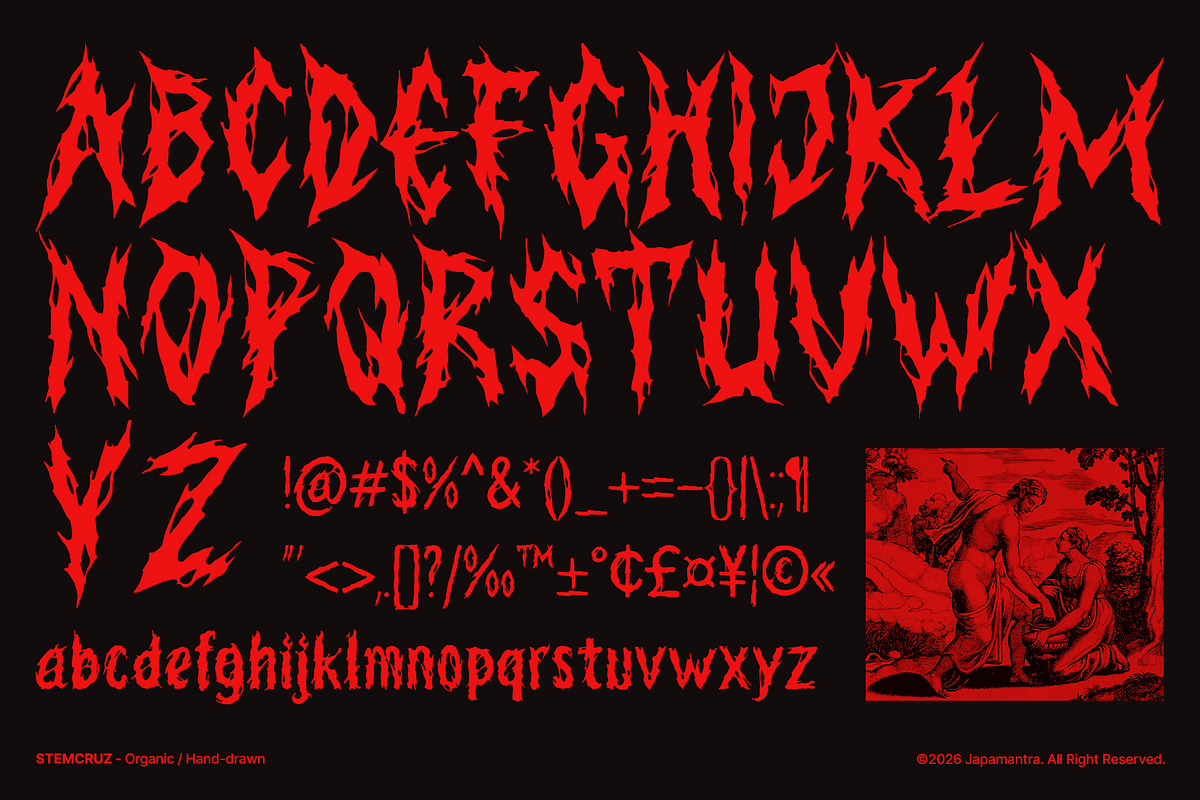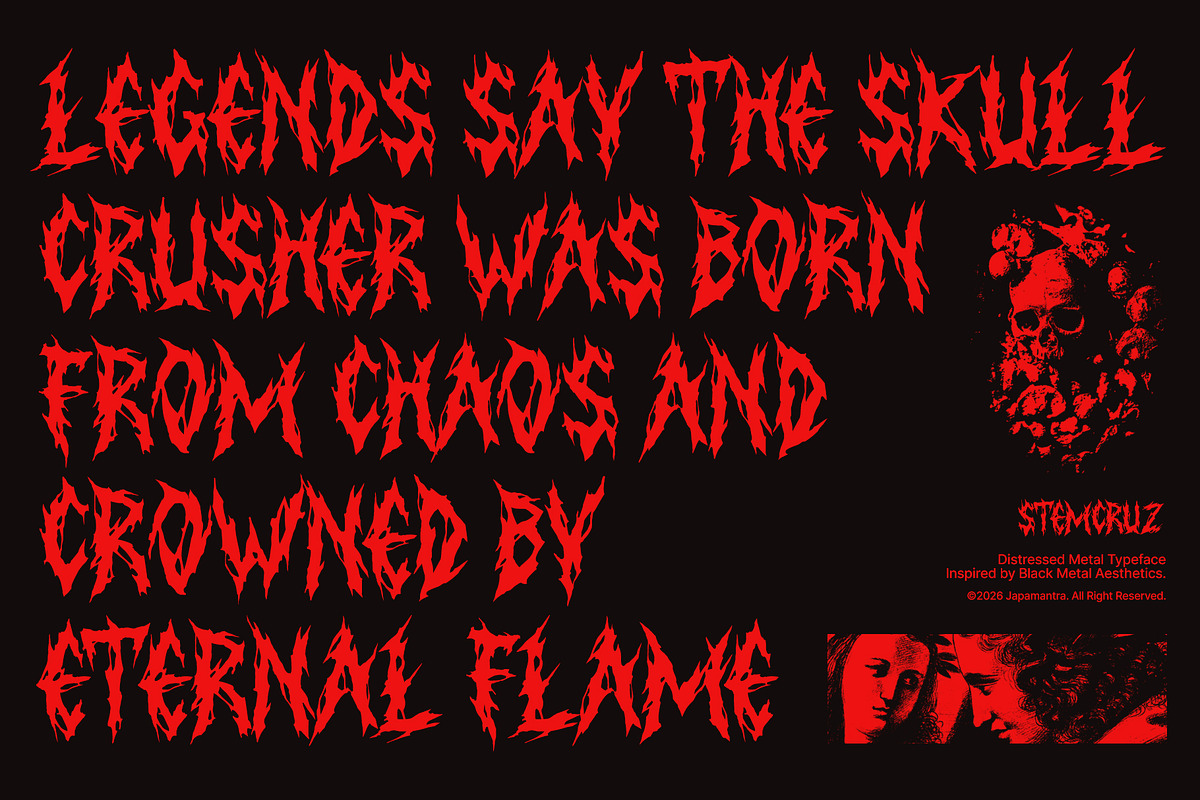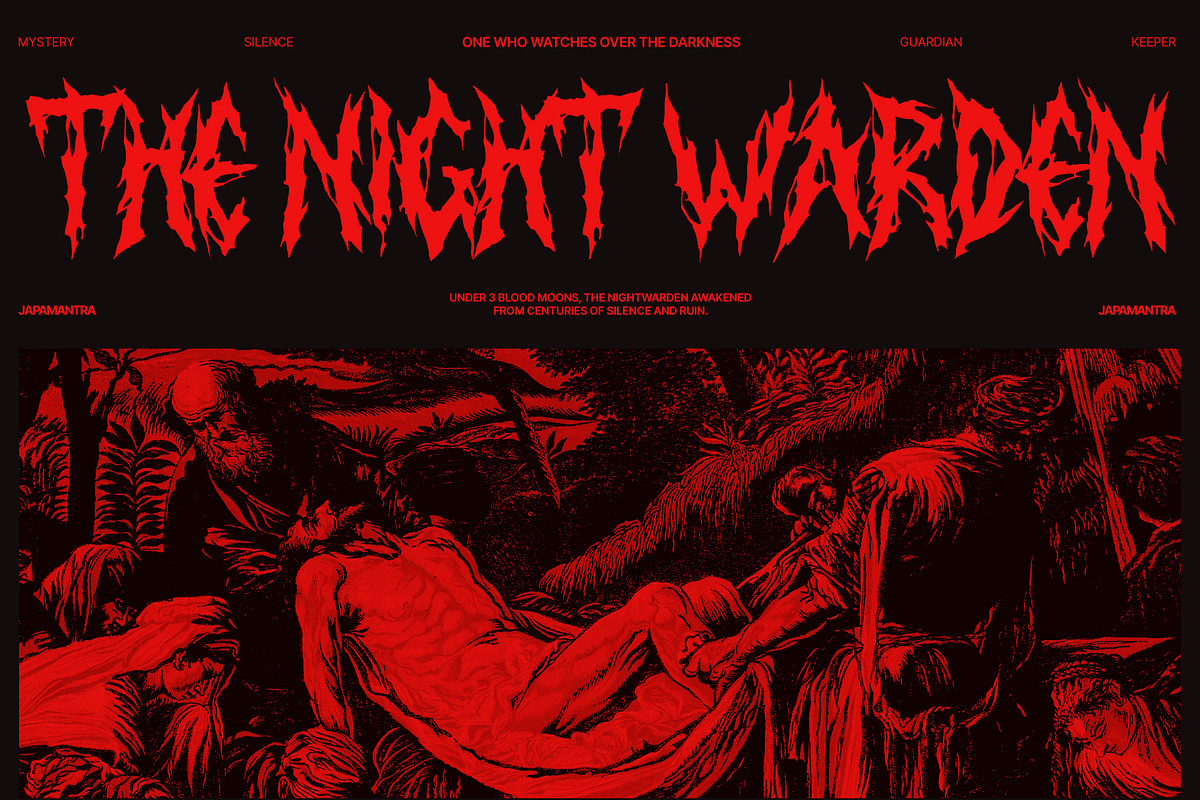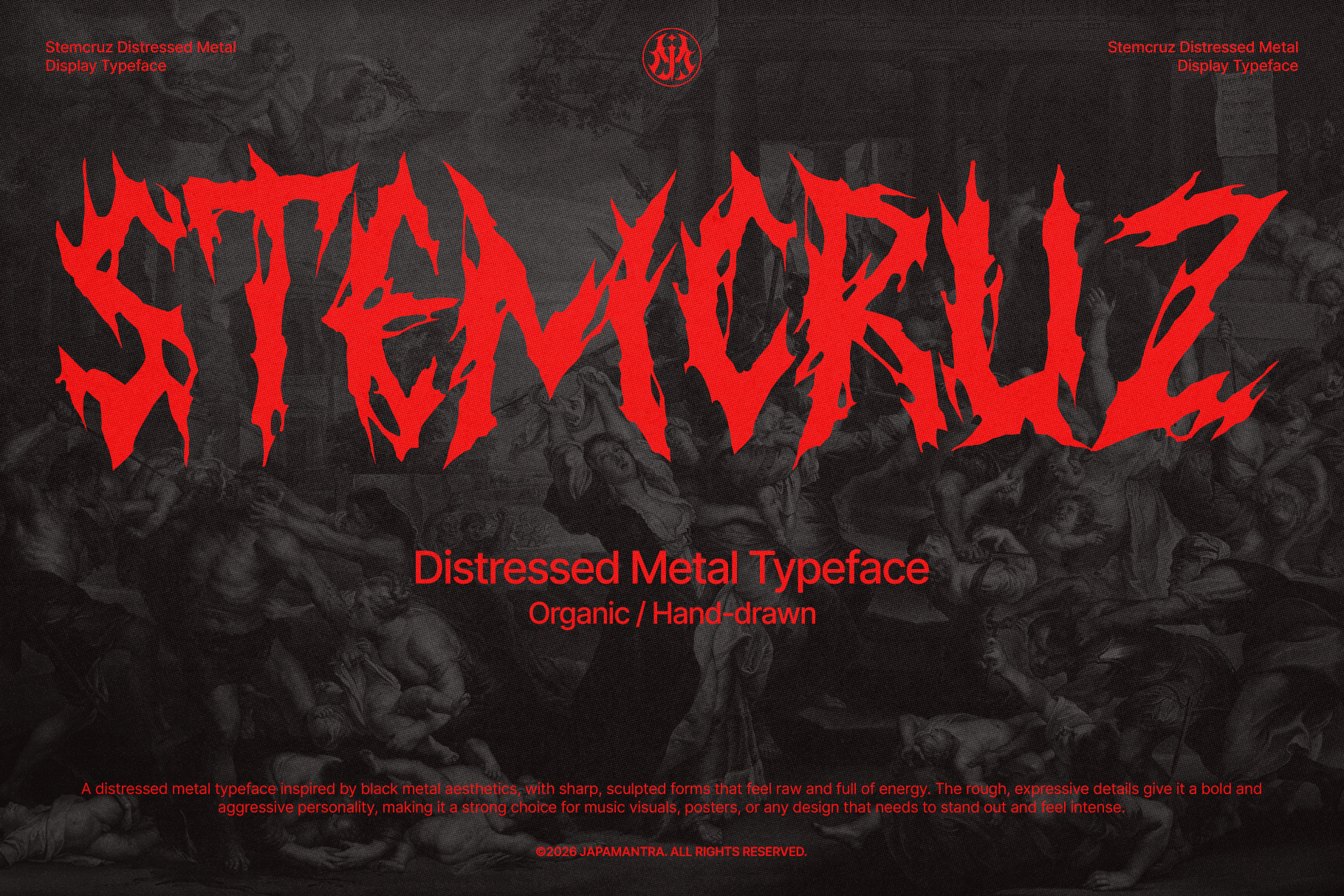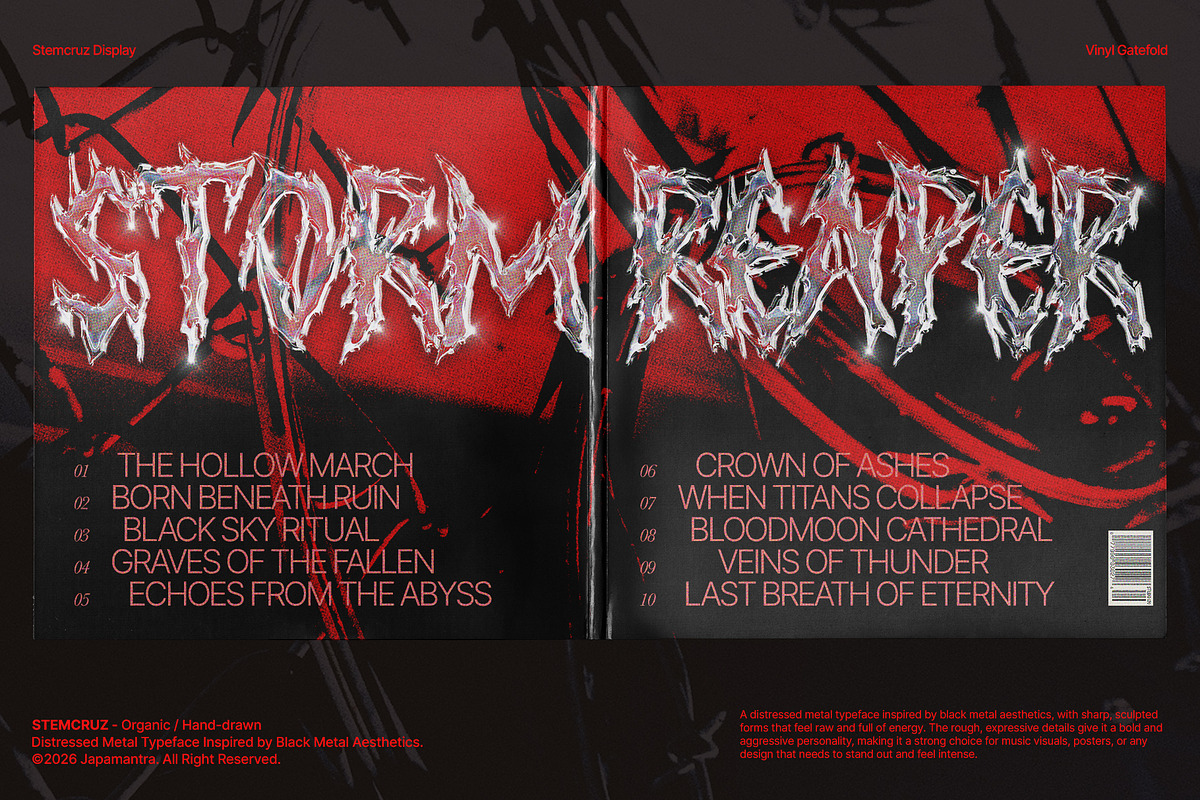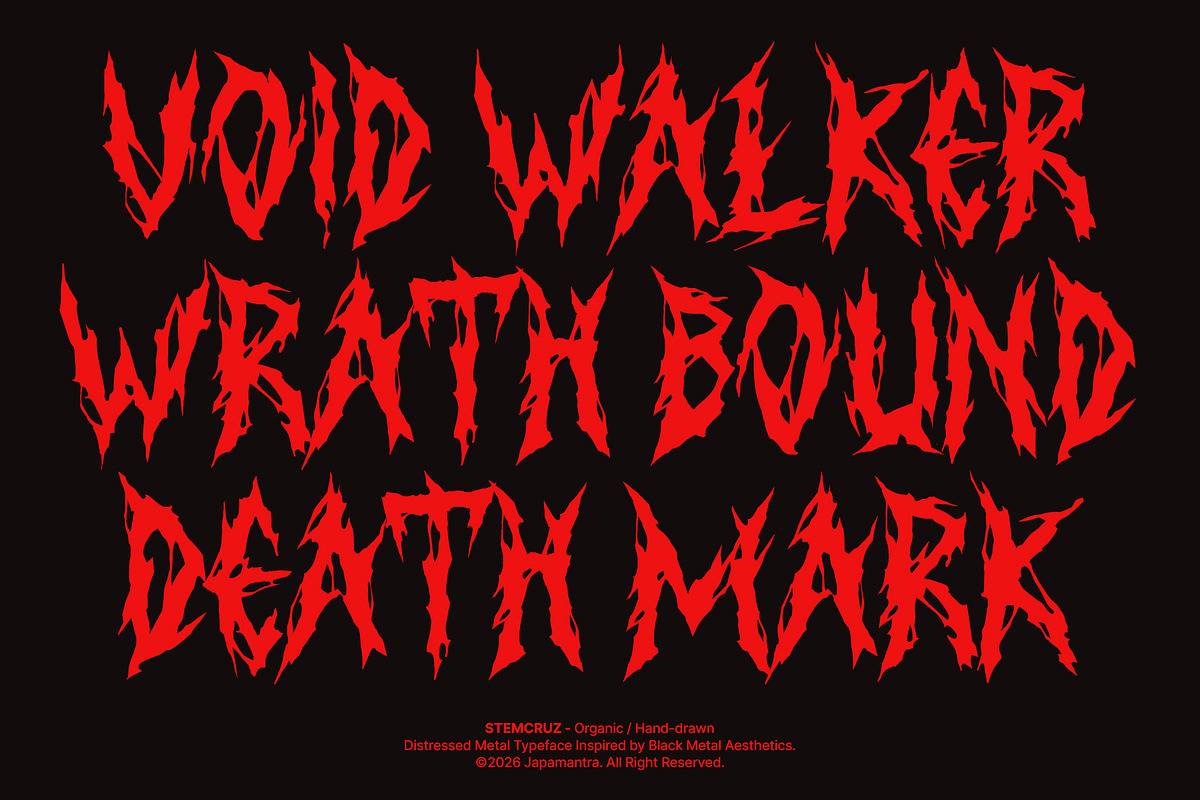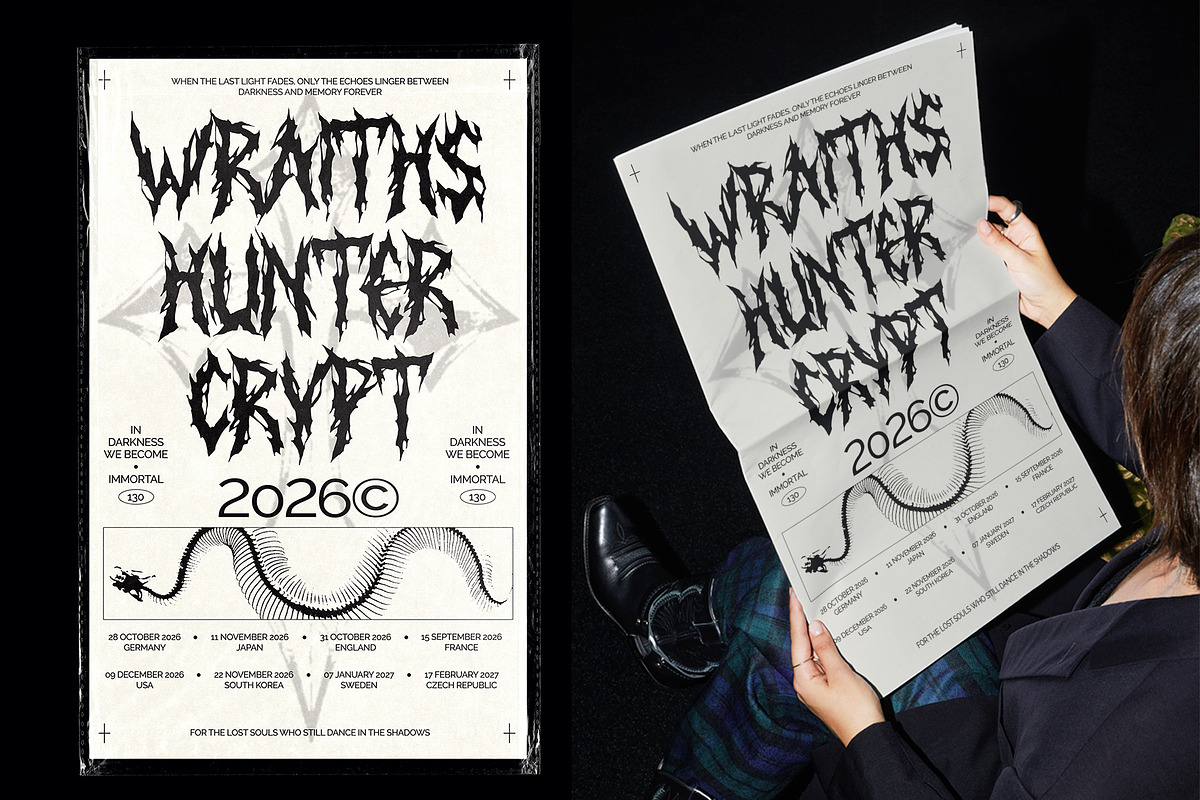
Stemcruz - Distressed Metal Font
STEMCRUZ is a hand-drawn distressed metal typeface inspired by the raw energy of extreme metal and underground music culture. Featuring sharp, organic forms, aggressive spikes, and chaotic textures, this font captures the dark, rebellious spirit of black metal aesthetics while maintaining strong readability for impactful designs.
Every letter is carefully crafted with irregular contours and sculpted details, giving your work an authentic handcrafted feel. Whether you're designing album covers, band logos, festival posters, merchandise, apparel graphics, or horror-themed branding, STEMCRUZ delivers a powerful visual statement that demands attention.